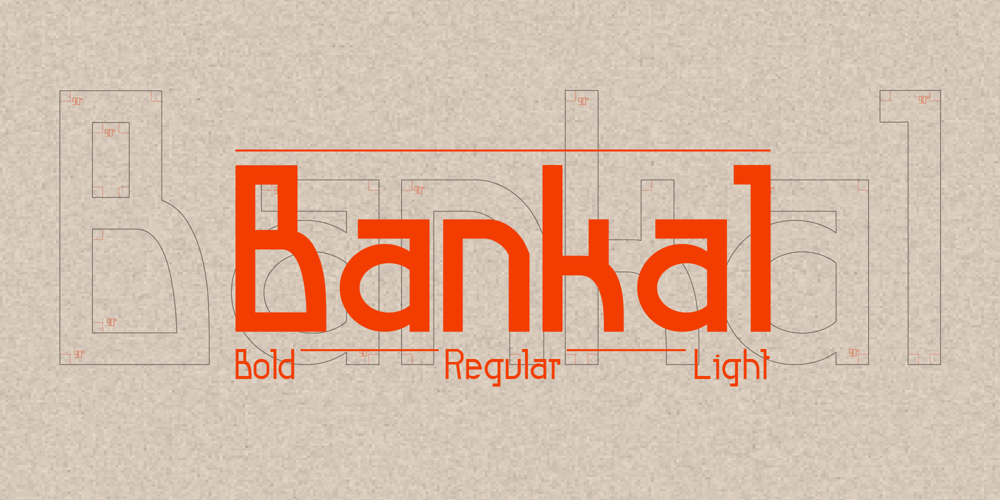
Bankal Font Family was designed by Hugo Kuder and published by Hugo Kuder. Bankal contains 3 styles and family package options. After a few months my new typeface “Bankal” is here!To create it, I always tried to keep a 90 degree angle. In French when you say that something is “bancal” it means that it’s not right. This is why I choose this as a name because despite the name she is right. And for the K it’s just for the style here.Bankal is a sans-serif font with 3 variations (bold, regular, light)Check more on my website : https://www.hugokuder.com/ or my instagram : hugokuderdesign